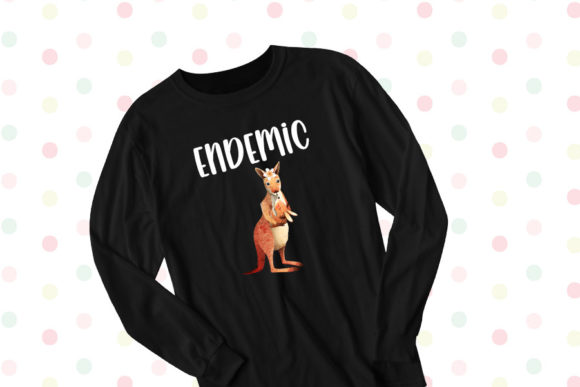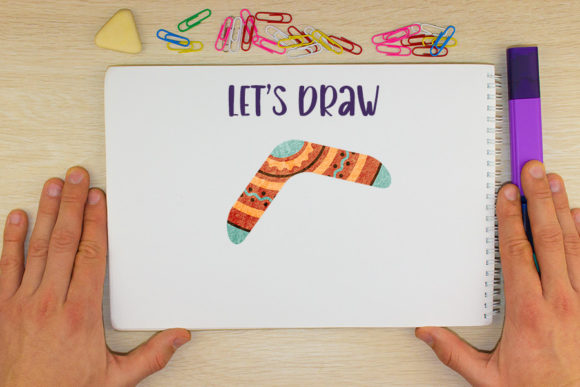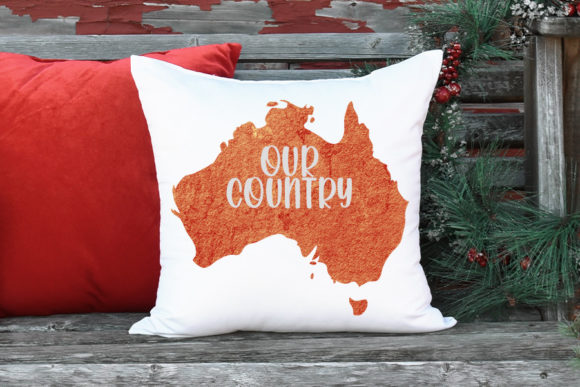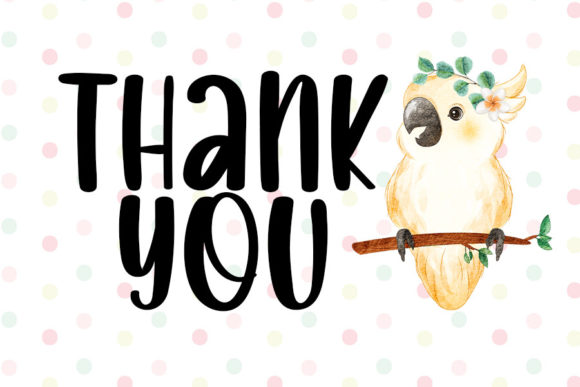
The Ultimate Guide to Australia Font: Elevate Your Designs with Confidence and Style
I’ll never forget the time I was working on a project for a client who wanted a font that exuded confidence, friendliness, and a touch of playfulness. I scoured the internet, tried out countless fonts, but nothing seemed to fit the bill. That was until I stumbled upon Australia Font. ✨ It was love at first sight! The stylish alternates, ligatures, and overall aesthetic had me hooked. In this article, I’ll share my experience with Australia Font, its features, and how to make the most of it in your designs.
- ✅ Confidence and Versatility: Australia Font embodies a sense of confidence and versatility, making it perfect for a wide range of projects.
- ✨ Stylish Alternates and Ligatures: The font’s stylish alternates and ligatures add a touch of sophistication and elegance to any design.
- 🎉 Easy to Read: Australia Font is clear and easy to read, even at smaller font sizes.
A Few Quirks to Consider
- ⚠️ Limited Use in Small Text: While Australia Font is generally easy to read, it may not be the best choice for small text or body copy.
- 🤔 Some Alternates Can Be Overused: With great power comes great responsibility! Be mindful not to overuse the stylish alternates and ligatures.
The Story Behind Australia Font
Australia Font was designed with the intention of creating a friendly, approachable font that would evoke the spirit of creativity and playfulness. The designer, inspired by the country’s stunning landscapes and vibrant culture, aimed to craft a font that would be both stylish and versatile.
Q: What is Australia Font?
A: Australia Font is a display font designed to convey confidence, friendliness, and versatility.
Q: Is Australia Font suitable for body copy?
A: While Australia Font is easy to read, it may not be the best choice for body copy or small text.